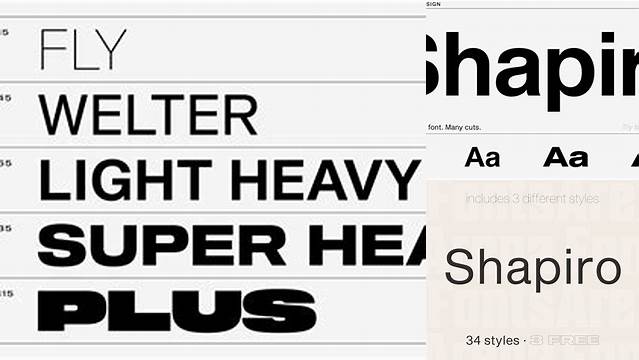
Shapiro 85 Font: An Overview
Okay, so what exactly is the Shapiro 85 font? Well, it's a geometric sans-serif typeface that's known for its clean lines and contemporary feel. Think minimalist chic meets retro cool. This makes it a fantastic choice for a wide range of design projects. The Shapiro 85 font has a distinct personality that can help your designs stand out. Whether you’re designing a logo, creating a poster, or working on a website, this font can bring a touch of sophistication and modernity. One of the things that makes Shapiro 85 so appealing is its versatility. It works well in both headlines and body text, although it really shines in larger sizes where its unique characteristics can be fully appreciated. It's got a certain visual impact that can capture attention and convey your message effectively. Plus, the clean, geometric structure makes it highly legible, which is super important for ensuring your audience can actually read what you've written! You might be wondering, what kind of projects is it best suited for? Well, imagine using it for a tech startup's branding, or a cool, modern magazine layout, or even eye-catching social media graphics. The possibilities are endless! In short, Shapiro 85 is a font that combines style and functionality, making it a valuable addition to any designer's toolkit. And who doesn't love having more creative options at their fingertips?
Key Features of Shapiro 85 Font
Let's talk about the nitty-gritty details that make the Shapiro 85 font so special. This font isn't just a pretty face; it's packed with features that make it a top choice for designers. First off, its geometric design is a major standout. The clean, precise lines give it a modern and professional look, which is perfect for projects that need a touch of sophistication. Think of it as the little black dress of fonts – classic, versatile, and always in style. Another key feature is its legibility. Even though it has a distinct personality, Shapiro 85 remains easy to read, which is crucial for ensuring your message gets across. No one wants a font that looks cool but is a pain to decipher, right? Legibility is especially important when you're using it for body text or in designs that require quick comprehension. The font also boasts a wide range of weights and styles, which means you can use it for various purposes. From bold headlines to lighter body text, Shapiro 85 has you covered. This versatility makes it a great investment (especially when you can find it for free!). And let's not forget about the character set. Shapiro 85 typically includes a full set of uppercase and lowercase letters, numerals, punctuation, and often special characters. This comprehensive set ensures you have everything you need to create a polished and professional design. So, in a nutshell, the key features of Shapiro 85 – its geometric design, legibility, versatility, and comprehensive character set – make it a powerhouse font that can elevate your design projects to the next level.
Alternative Fonts to Shapiro 85
So, you're digging the Shapiro 85 font vibe but maybe you're looking for something a little different, or perhaps you can't find a free version that suits your needs? No sweat! There are plenty of other fantastic fonts out there that share a similar aesthetic. Think of it as exploring different flavors within the same design family. One popular alternative is Montserrat. This geometric sans-serif font has a clean, modern feel that's very similar to Shapiro 85. It's super versatile and works well for everything from headlines to body text. Plus, it's available for free on Google Fonts, making it a great option if you're on a budget. Another excellent choice is Lato. Lato is another sans-serif typeface that has a friendly and approachable vibe. It's slightly less geometric than Shapiro 85, but it still has a modern and clean look. Lato is also a free font available on Google Fonts, so it's easily accessible. If you're looking for something with a bit more personality, check out Raleway. This elegant sans-serif font has a slightly more refined feel than Shapiro 85, but it still maintains a modern aesthetic. Raleway is another free font that's widely used and loved by designers. And let's not forget about Poppins. This geometric sans-serif font is another Google Fonts gem that offers a contemporary and clean design. It's highly legible and comes in a variety of weights, making it a versatile choice for various projects. All of these fonts share the same fundamental qualities that make Shapiro 85 so appealing – clean lines, modern design, and versatility. They're all excellent options for projects that require a touch of sophistication and professionalism. The key is to experiment and find the font that best suits your specific needs and aesthetic preferences. In the coming sections, we'll delve into how you can effectively use these fonts in your designs to create stunning visuals. Let’s get creative!
Tips for Using Shapiro 85 and Similar Fonts Effectively
Alright, you've got your Shapiro 85 font (or a fantastic alternative!), now what? Knowing how to use a font effectively is just as important as finding the right one. So, let's dive into some tips and tricks to make your designs shine using Shapiro 85 and similar fonts. First up, contrast is key. Pair Shapiro 85 with a contrasting font to create visual interest. Since Shapiro 85 is a geometric sans-serif, consider pairing it with a serif font for body text. This creates a nice balance and makes your design more engaging. Think of it as creating harmony between different personalities – a little bit of tension can be a good thing! Next, pay attention to hierarchy. Use different font weights and sizes to create a clear visual hierarchy in your design. Shapiro 85 works great for headlines and subheadings, while a simpler font like Lato or Open Sans can be used for body text. This helps guide the viewer's eye and ensures your message is communicated effectively. Another crucial tip is to consider the context. Think about the overall tone and style of your project. Shapiro 85 is a modern and sophisticated font, so it's best suited for designs that have a similar aesthetic. If you're working on a project that's more playful or whimsical, you might want to choose a different font. And don't forget about white space. Give your text room to breathe by using plenty of white space around it. This makes your design look cleaner and more professional, and it also improves readability. Cramped text can be overwhelming and hard to read, so give your viewers a break! Finally, experiment and have fun! Don't be afraid to try different combinations of fonts, sizes, and weights. The best way to learn what works is to play around and see what you can create. Design is all about exploration, so embrace the process and let your creativity flow. In the following sections, we'll look at some real-world examples of how Shapiro 85 and similar fonts have been used in successful designs.
Real-World Examples of Shapiro 85 in Design
Okay, let's get inspired! Sometimes the best way to understand how to use a font is to see it in action. So, let's take a look at some real-world examples of how the Shapiro 85 font (or fonts with a similar vibe) has been used in successful designs. Imagine a tech startup using Shapiro 85 in their logo and branding materials. The font's clean, geometric lines convey a sense of modernity and innovation, which is perfect for a tech company that wants to project a cutting-edge image. The font can be used in a bold, impactful way for the logo, and then paired with a simpler sans-serif font for the website and marketing materials. Another great example is in editorial design. Think of a sleek, modern magazine using Shapiro 85 for headlines and subheadings. The font's legibility and visual appeal make it a great choice for attracting readers and guiding them through the content. Paired with a classic serif font for the body text, it creates a sophisticated and engaging reading experience. You might also see Shapiro 85 used in poster design. Its strong, geometric forms make it ideal for creating eye-catching visuals that grab attention. Whether it's a poster for a music festival or an art exhibition, Shapiro 85 can help make a bold statement. And let's not forget about website design. Shapiro 85 can be used effectively in website headers and navigation menus, adding a touch of modern elegance to the overall design. Paired with clean layouts and plenty of white space, it can create a website that's both visually appealing and user-friendly. These are just a few examples, guys, and the possibilities are truly endless. The key takeaway is that Shapiro 85 and similar fonts are incredibly versatile and can be used in a wide range of design projects. By understanding their strengths and how they can be paired with other design elements, you can create stunning visuals that leave a lasting impression. In the next sections, we'll explore some advanced typography techniques that can help you take your designs to the next level.
Advanced Typography Techniques for Shapiro 85
So, you've got the basics down, but want to really make your designs pop? Let's dive into some advanced typography techniques that you can use with Shapiro 85 font to take your work to the next level. These techniques can add a touch of sophistication and professionalism to your designs, and help you stand out from the crowd. First up, let's talk about kerning and tracking. Kerning refers to the spacing between individual letters, while tracking is the overall spacing between all the letters in a word or phrase. Adjusting these settings can make a big difference in the readability and visual appeal of your text. With Shapiro 85, which has a geometric structure, careful kerning is especially important to ensure that the letters are evenly spaced and the text looks balanced. Next, consider using leading. Leading is the vertical space between lines of text. Adjusting the leading can improve readability, especially in longer blocks of text. A good rule of thumb is to use a leading that's slightly larger than the font size, but you can experiment to see what works best for your specific design. Another technique to explore is hierarchy and emphasis. Use different font weights, sizes, and styles to create a clear visual hierarchy and emphasize key words or phrases. With Shapiro 85, you can use the bold weight for headlines and the regular weight for body text. You can also use italics to emphasize certain words or phrases. And let's not forget about color. Using color strategically can help draw attention to certain elements and create a visually appealing design. Consider using a contrasting color for your headlines or key words to make them stand out. You can also use color to create a mood or convey a message. Finally, experiment with type on a path. This technique involves placing text along a curved or circular path, which can add a unique and dynamic element to your designs. Type on a path can be particularly effective for logos and branding materials. By mastering these advanced typography techniques, you can unlock the full potential of Shapiro 85 and create truly stunning designs. In the following sections, we'll look at some common typography mistakes to avoid.
Font Pairing Strategies for Shapiro 85
Okay, guys, let's talk font duets! You've got Shapiro 85 font in your toolkit, but it's rarely a solo act. Pairing it with the right partner can elevate your design from